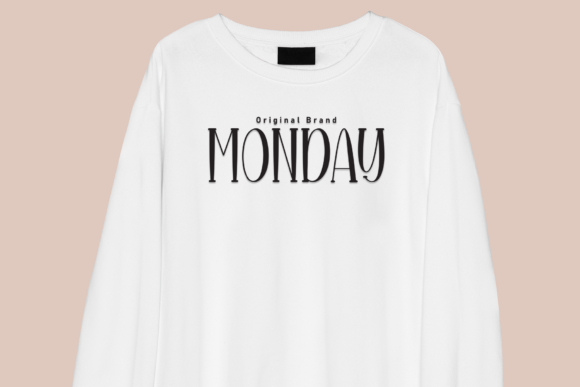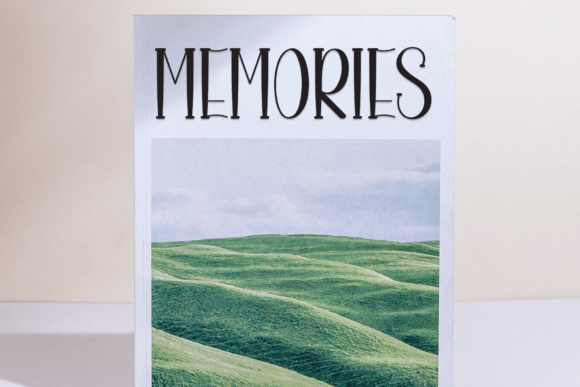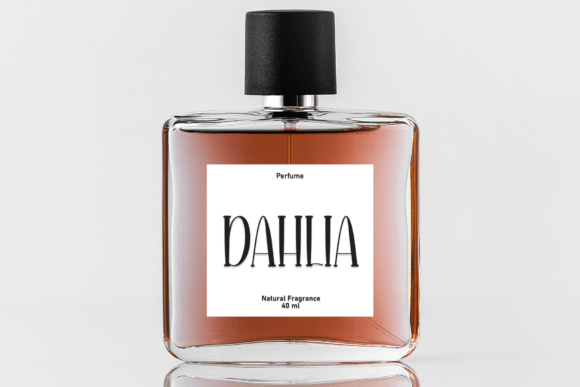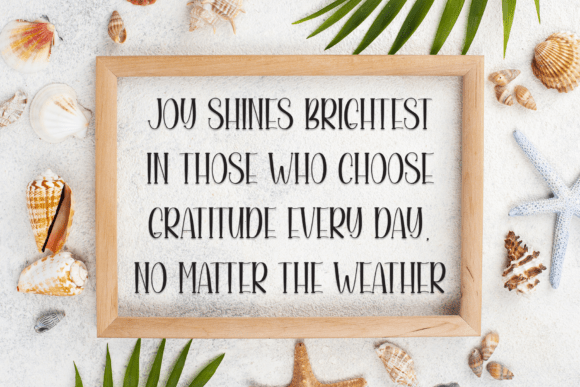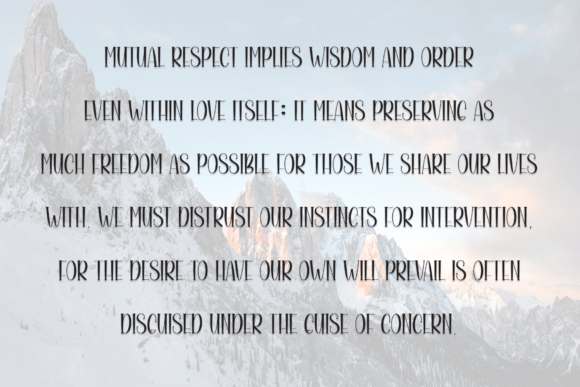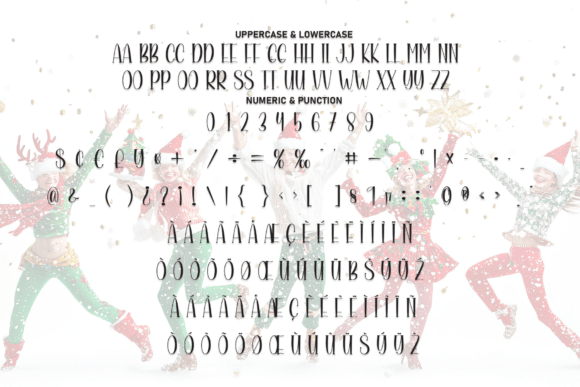
Dancing Christmas Font: Elevate Your Holiday Designs with Elegance and Whimsy
The holiday season is upon us, and with it comes the desire to create festive and captivating designs that evoke the spirit of joy and celebration. Introducing Dancing Christmas, a stunning handwritten font that embodies the elegance and playfulness of the season. This beautiful typeface is designed to bring a touch of sophistication and magic to your holiday designs, making it the perfect choice for luxury stationery, event invitations, boutique branding, and high-end editorial headers.
A Font that Dances with Elegance
Dancing Christmas is characterized by its tall, slender silhouette and elegant, sweeping curves that mimic the fluid motion of holiday celebrations. The font’s high-contrast strokes and whimsical, elongated terminals add a “couture” feel to festive designs, making it a standout choice for designers and crafters looking to create something truly special. Whether you’re designing luxury holiday stationery, romantic winter event invitations, or boutique branding, Dancing Christmas is sure to turn every word into a festive movement.
Celebrate the Spirit of Joy
The Dancing Christmas font is all about capturing the essence of the holiday season. Its refined magic and artisanal charm make it the perfect choice for designers who want to create holiday designs that are both elegant and playful. With Dancing Christmas, you can add a touch of sophistication to your designs, whether you’re creating:
- Luxury holiday stationery that exudes elegance and refinement
- Romantic winter event invitations that set the tone for a magical celebration
- Boutique branding that showcases your unique style and flair
- High-end editorial headers that demand attention and admiration
Design with Whimsy and Elegance
Dancing Christmas is more than just a font – it’s a design experience. Its whimsical and elegant curves invite you to create holiday designs that are both fun and sophisticated. Whether you’re a designer, crafter, or DIY enthusiast, Dancing Christmas is the perfect choice for anyone looking to add a touch of magic to their holiday creations.
Key Features of Dancing Christmas Font
- Tall, slender silhouette with elegant, sweeping curves
- High-contrast strokes and whimsical, elongated terminals
- “Couture” feel perfect for luxury holiday designs
- Refined magic and artisanal charm
- Suitable for luxury stationery, event invitations, boutique branding, and high-end editorial headers
Tips for Using Dancing Christmas Font
To get the most out of Dancing Christmas, here are a few design tips to keep in mind:
- Pair Dancing Christmas with a simple, bold font for a striking contrast
- Use Dancing Christmas as a headline font to add a touch of elegance
- Don’t be afraid to add your own personal touches and flourishes
Dancing Christmas is a truly special font that captures the essence of the holiday season. Its elegant, whimsical curves and refined magic make it the perfect choice for designers and crafters looking to create holiday designs that are both sophisticated and playful. Whether you’re designing luxury stationery, event invitations, or boutique branding, Dancing Christmas is sure to turn every word into a festive movement. So why wait? Get creative with Dancing Christmas and celebrate the spirit of joy this holiday season!